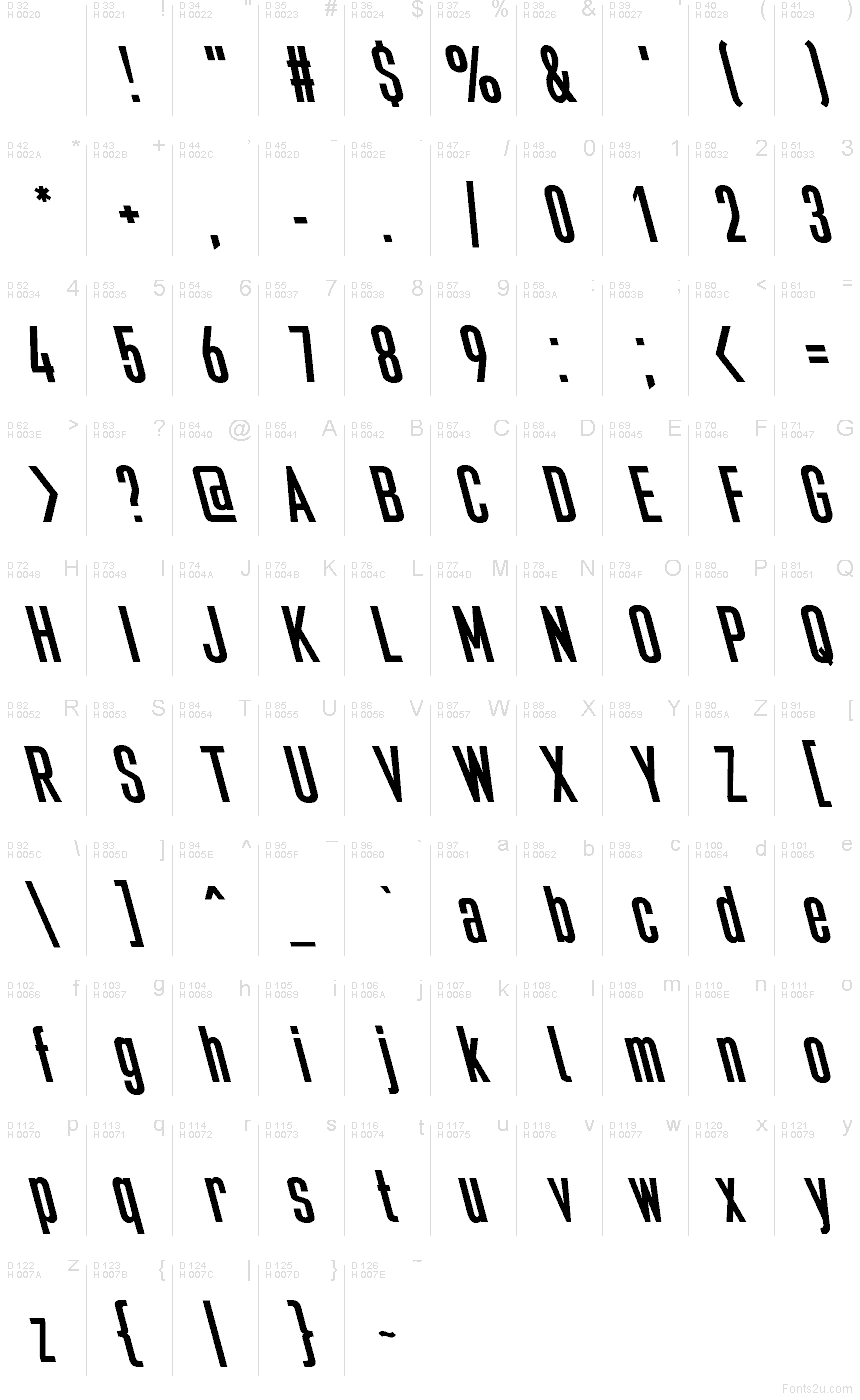
Bilgen Demo Black Left
Bilgen Black Left font by Bykineks is a free sans serif typeface with a striking left-leaning stance that feels like it’s already in motion. The heavy, condensed letters stack tightly, creating a solid black bar of energy, while the subtle curves keep it from feeling mechanical. That offbeat tilt gives headlines a rebellious, slightly retro edge without sacrificing clarity or structure.
Using Bilgen Black Left, you can push attitude into posters, esports branding, album covers, bold packaging, editorial titles, and social media graphics. This free font shines when set large and tight, then balanced with a clean, lighter sans serif from the Bilgen family for supporting text.